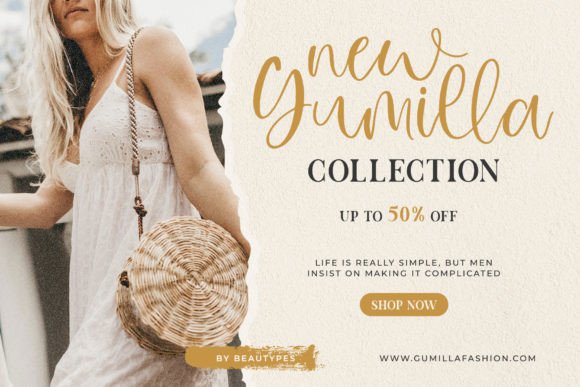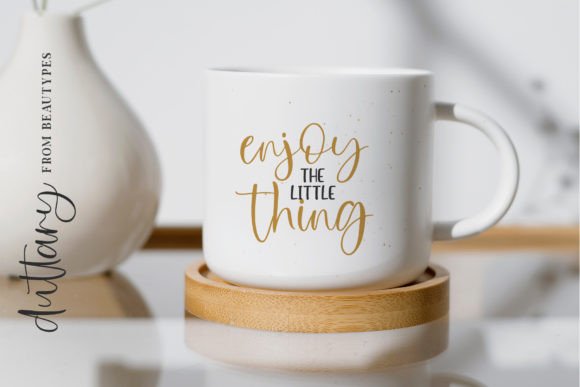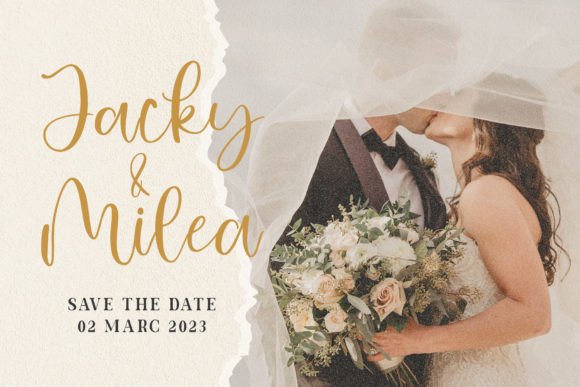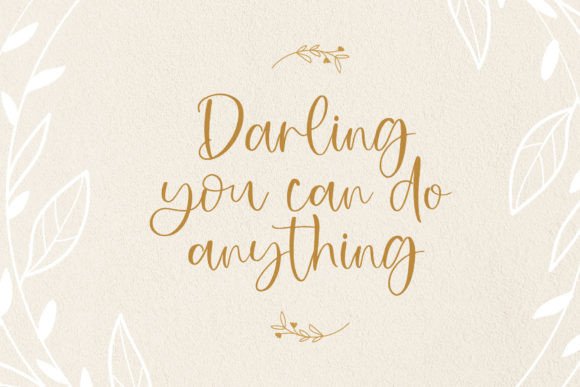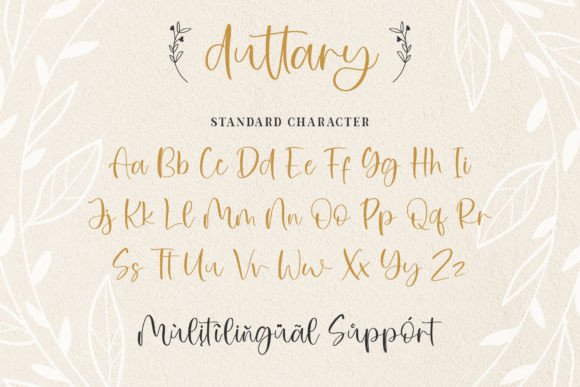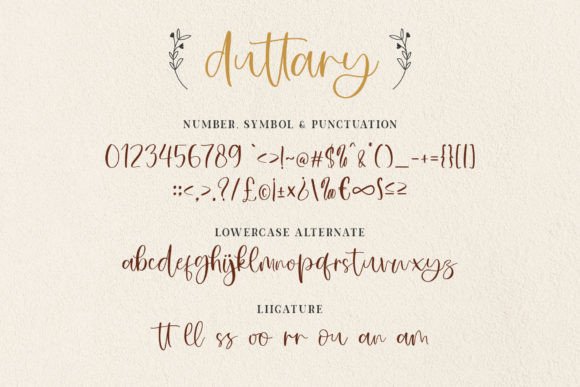
Duttary Font: The Ultimate Handwritten Font for Romantic Designs
Are you a designer or crafter looking for a font that can add a touch of romance and elegance to your design projects? Look no further than Duttary Font! This light and fresh handwritten font is perfect for a wide range of design applications, from invitations and logos to social media posts and product packaging.
The Characteristics of Duttary Font
Duttary Font is a beautifully crafted handwritten font that exudes a sense of romance and sophistication. Its light and fresh feel makes it perfect for designs that require a touch of elegance and whimsy. The font’s incredibly romantic feel is sure to inspire any design project, and its versatility makes it suitable for a wide range of applications.
Duttary Font is perfect for a wide range of design projects, including:
- Invitations: Whether you’re designing wedding invitations, birthday invitations, or any other type of invitation, Duttary Font is the perfect choice.
- Logos & Branding: Duttary Font can be used to create beautiful logos and branding materials that will help your business stand out.
- Photography: Add a touch of elegance to your photography with Duttary Font, perfect for watermarks, captions, and more.
- Advertisements: Use Duttary Font to create eye-catching advertisements that will grab the attention of your target audience.
- Social Media Posts: Add a touch of personality to your social media posts with Duttary Font, perfect for Facebook, Instagram, Twitter, and more.
- Product Packaging: Use Duttary Font to create beautiful product packaging that will make your products stand out on store shelves.
- Product Designs: Duttary Font can be used to create a wide range of product designs, from labels to stickers to t-shirts.
- Wedding Designs: Duttary Font is perfect for wedding designs, including wedding invitations, wedding stationery, and more.
- Stationery: Use Duttary Font to create beautiful stationery, including notebooks, journals, and more.
Why Choose Duttary Font?
There are many reasons why you should choose Duttary Font for your design projects. Here are just a few:
- Unique and Elegant: Duttary Font is a unique and elegant font that will add a touch of sophistication to any design project.
- Versatile: Duttary Font can be used for a wide range of design projects, from invitations to product packaging.
- Easy to Read: Duttary Font is easy to read, making it perfect for designs that require a lot of text.
- High-Quality: Duttary Font is a high-quality font that will make your design projects look professional and polished.
Tips for Using Duttary Font
Here are a few tips for using Duttary Font in your design projects:
- Use it with a Simple Background: Duttary Font looks best with a simple background, so try to avoid using it with busy or patterned backgrounds.
- Experiment with Different Colors: Duttary Font can be used with a wide range of colors, so don’t be afraid to experiment and find the perfect color for your design.
- Use it for Headings and Titles: Duttary Font is perfect for headings and titles, so try to use it for these elements in your design projects.
Duttary Font is a beautiful and versatile handwritten font that is perfect for a wide range of design projects. Its light and fresh feel makes it perfect for designs that require a touch of elegance and whimsy. With its unique and elegant style, Duttary Font is sure to inspire any design project and help you create beautiful and professional-looking designs.